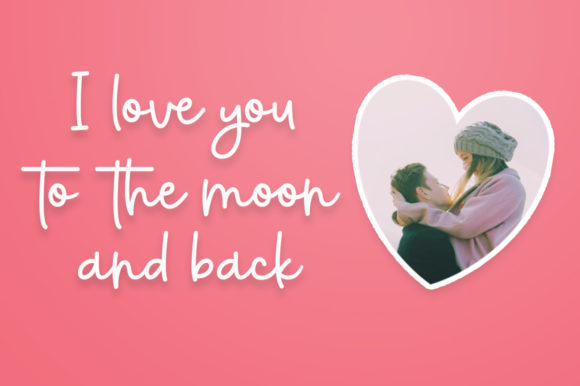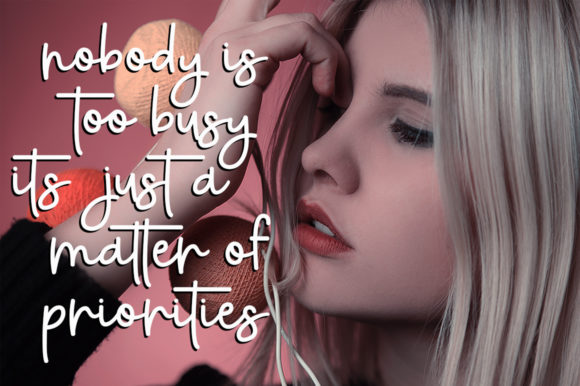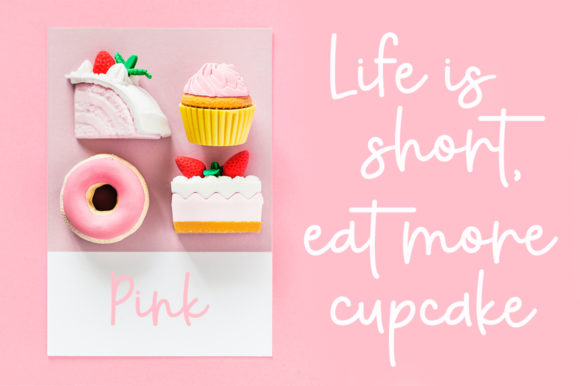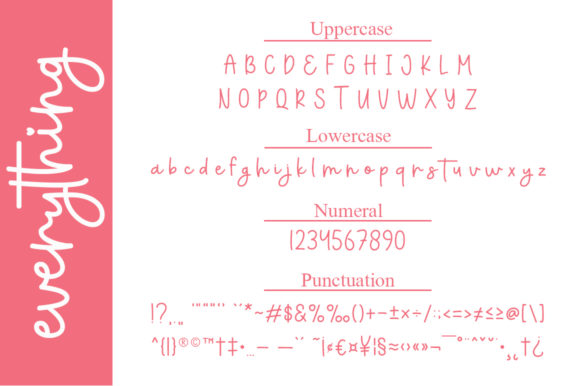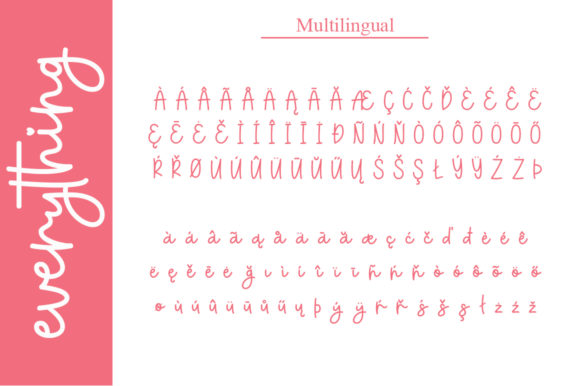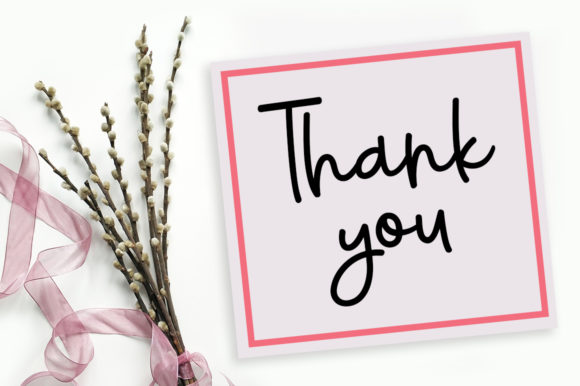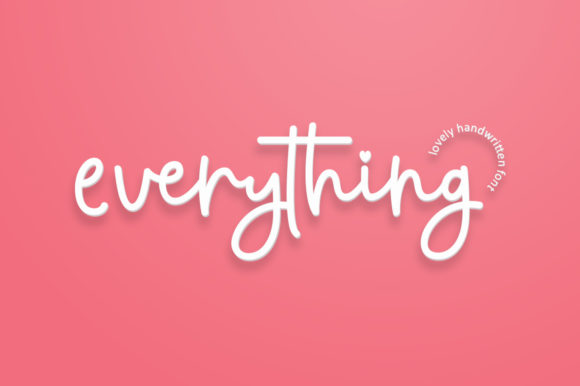
Introducing Everything Script Font: Elevate Your Designs with Modern Handwritten Typography
In the world of typography, few fonts capture the essence of personal touch and elegance as beautifully as the Everything Script. This modern handwritten font has been gaining popularity among designers, crafters, and anyone looking to add a personal flair to their projects. The Everything Script is not just a font; it’s a tool that allows you to create stunning, hand-made typography in an instant, bringing a unique and sophisticated look to your designs.
The Charm of Handwritten Typography
Handwritten typography has a way of conveying warmth, personality, and a sense of human touch that is often missing in digital designs. It’s the reason why handwritten fonts, like the Everything Script, have become highly sought after for a variety of projects, from branding and advertising to stationery and digital media. The Everything Script, with its fluid strokes and elegant letterforms, embodies the charm of handwritten typography, making it an excellent choice for designers looking to add a touch of sophistication and elegance to their work.
Key Features of Everything Script Font
The Everything Script font comes with a range of features that make it versatile and highly usable for various design projects. Some of its key features include:
- Modern and Elegant Design: The Everything Script boasts a modern and elegant design, making it perfect for projects that require a contemporary look.
- Handwritten Style: Its handwritten style gives it a personal touch, making your designs stand out with a unique and approachable feel.
- Easy to Read: Despite its elegant and cursive nature, the Everything Script is remarkably easy to read, making it suitable for both headings and body text.
- High Versatility: This font is highly versatile and can be used for a wide range of projects, including branding, packaging, web design, and more.
- Instant Results: With the Everything Script, you can achieve beautiful, hand-made typography instantly, saving you time and effort in your design process.
Who Can Benefit from Everything Script Font?
The Everything Script font is a valuable asset for a wide range of professionals and enthusiasts. Here are some of the groups that can benefit from using this font:
- Graphic Designers: Graphic designers can use the Everything Script to add a touch of elegance and personality to their designs, making their work more engaging and distinctive.
- Crafters: Crafters, especially those involved in digital crafting or creating printable art, can use this font to add a personal and handmade feel to their projects.
- Branding and Marketing Professionals: For branding and marketing professionals, the Everything Script offers a way to create memorable and impactful brand identities with its unique typography.
- Web Designers: Web designers can use this font to create visually appealing and user-friendly websites that stand out from the crowd.
- Stationery and Card Makers: Anyone creating digital stationery, greeting cards, or invitations can use the Everything Script to add a touch of warmth and elegance.
Tips for Using Everything Script Font Effectively
To get the most out of the Everything Script font, here are some tips for using it effectively in your designs:
- Pair with Complementary Fonts: Pair the Everything Script with simpler, sans-serif fonts for body text to create a balanced and harmonious design.
- Experiment with Sizes: Don’t be afraid to experiment with different font sizes to create visual hierarchy and emphasis in your designs.
- Use for Headings and Titles: Utilize the Everything Script for headings, titles, and key messages to draw attention and add personality to your designs.
- Play with Colors: Take advantage of the font’s elegance by using it in various colors that complement your brand or design theme.
The Everything Script font is a powerful tool for anyone looking to elevate their designs with beautiful, modern handwritten typography. Its elegance, versatility, and ease of use make it an excellent choice for a wide range of projects, from professional branding and advertising to personal crafting and digital art. By incorporating the Everything Script into your design toolkit, you can create stunning, hand-made typography in an instant, bringing a unique and sophisticated look to your work.